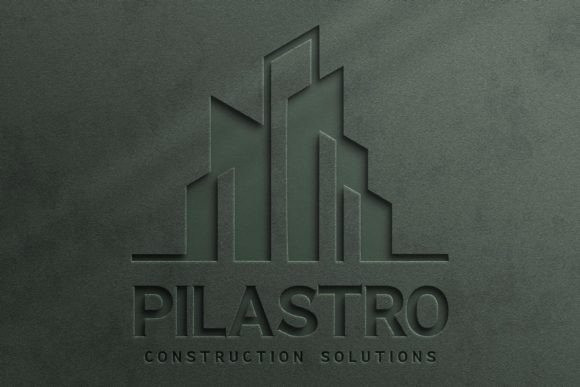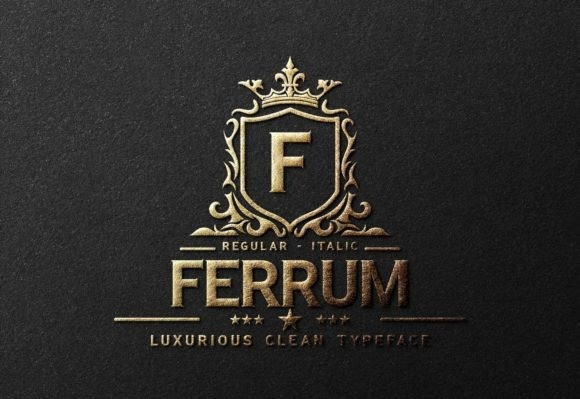
Ferrum Font
Ferrum Font is an elegant and minimalist slab serif typeface. Whenever you feel uncertain about using serif, slab serif, or sans serif, this font is for you. Add it to your creative projects, and it will make them come alive!